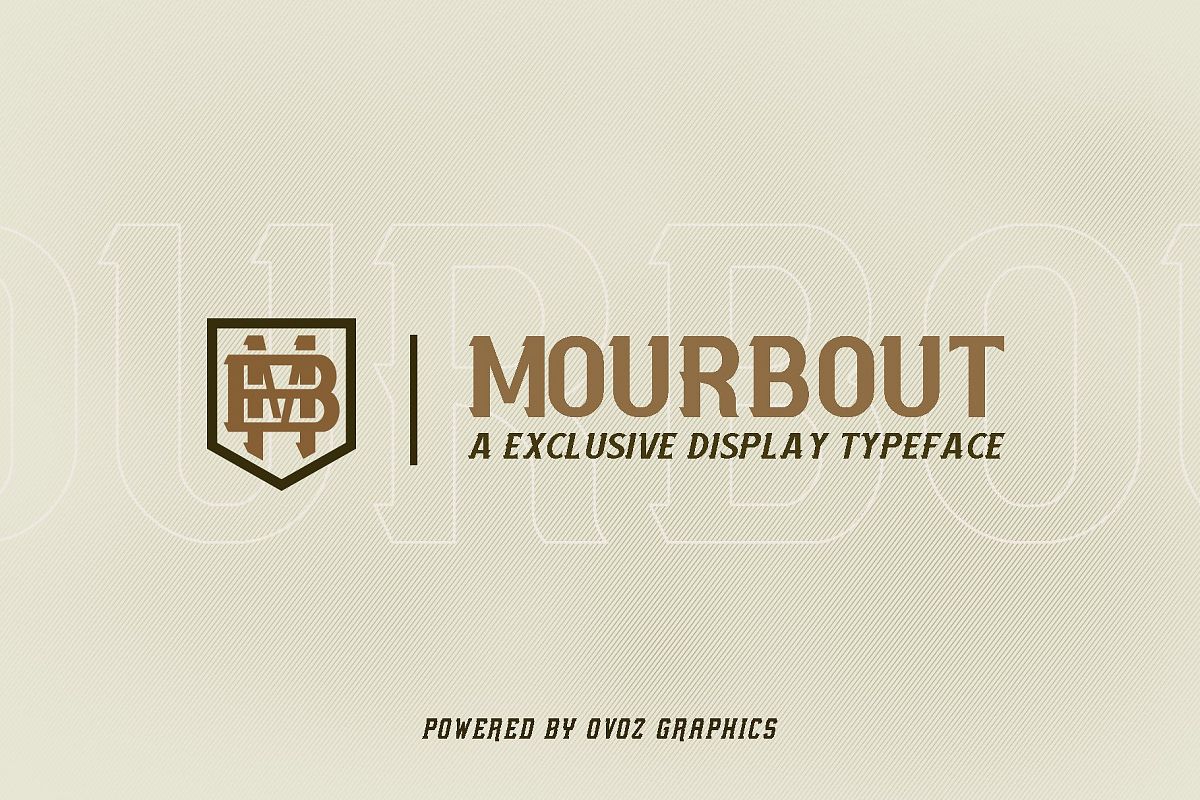
Mourbout - NFC Font Family
Introducing, MOURBOUT NFC Font Family, after a long time not uploading new item, finally Ovoz Creative start to creating new font that related to sports industries.
With bold and strong look that match with sports branding, this font very suitable use for baseball, hockey, basketball, etc.
This font has more advantages, such as more unique and unusual style you can explore.
Available into uppercase, lowercase, symbol, numeral, punctuation and including so many variant of glyph. Also suitable to t-shirt, jacket, hat, or everything related about merchandise.